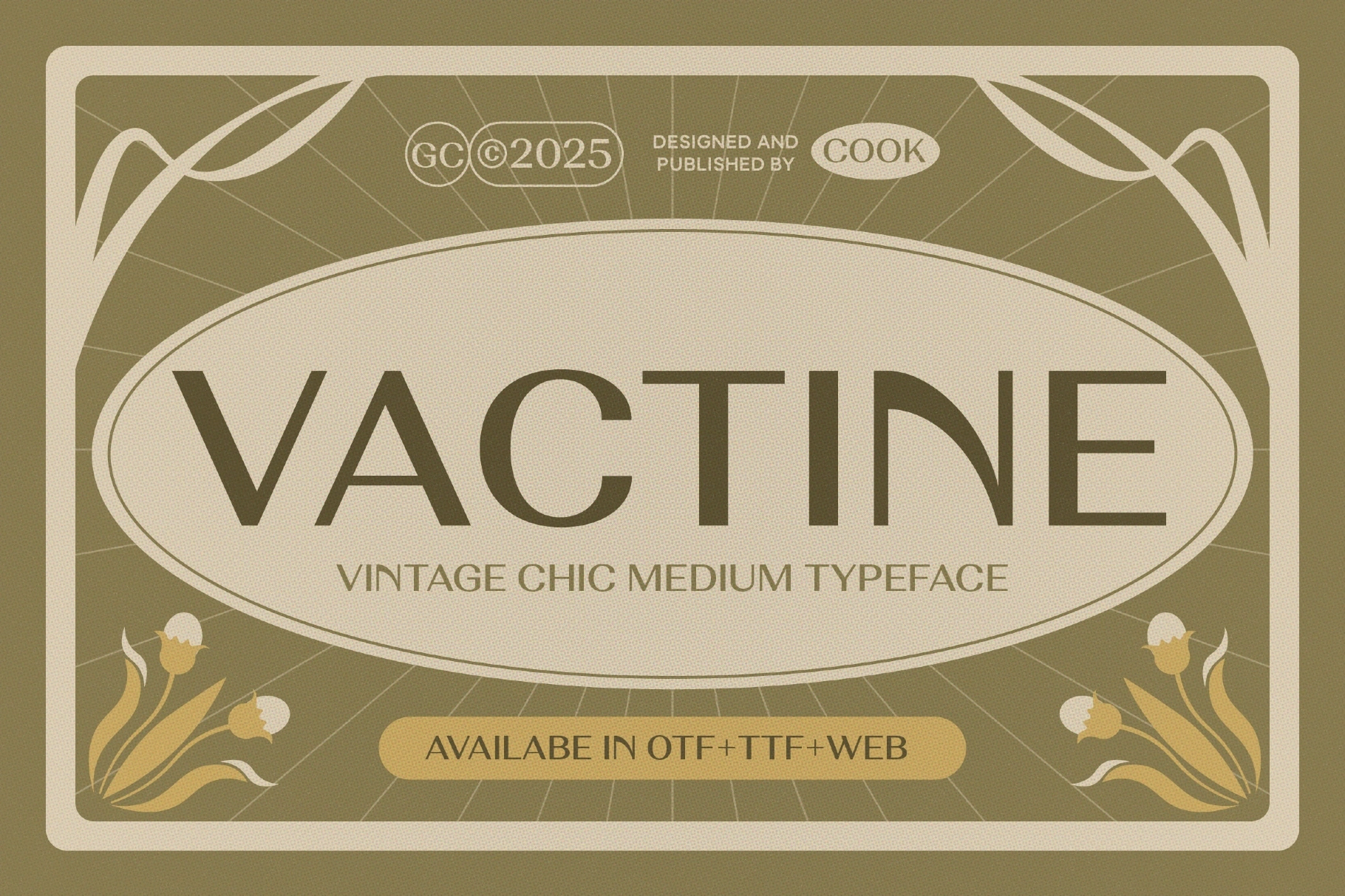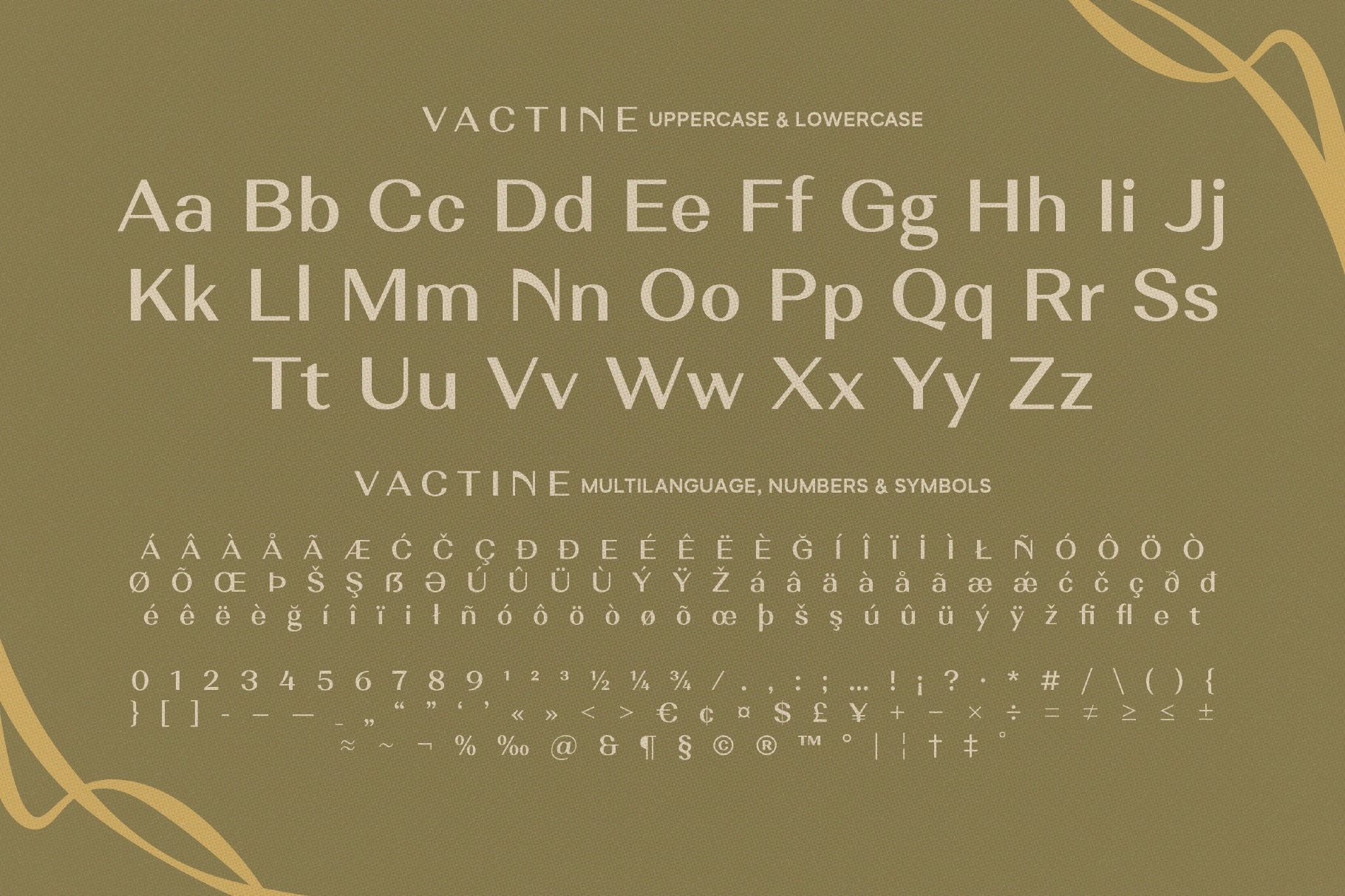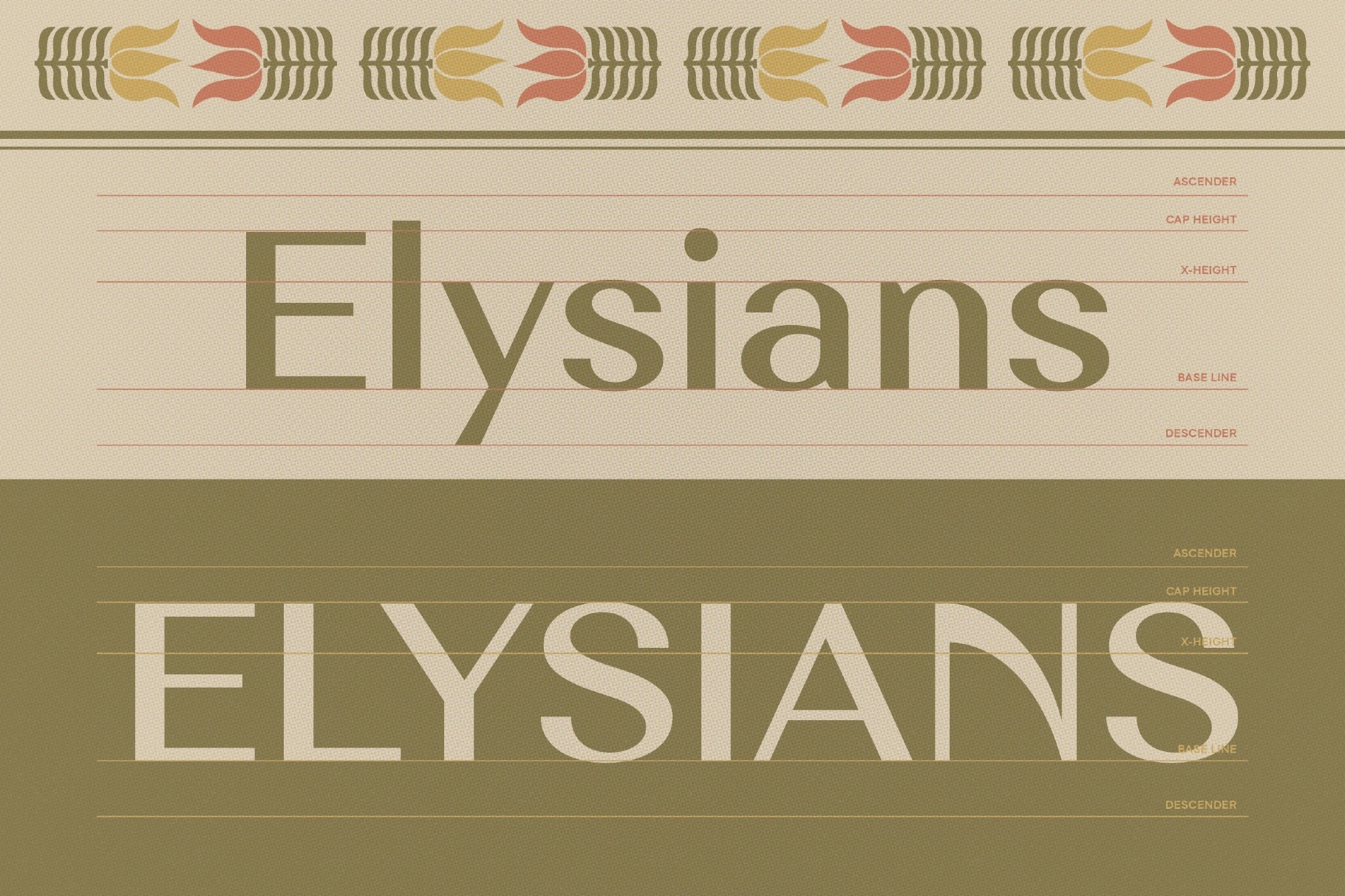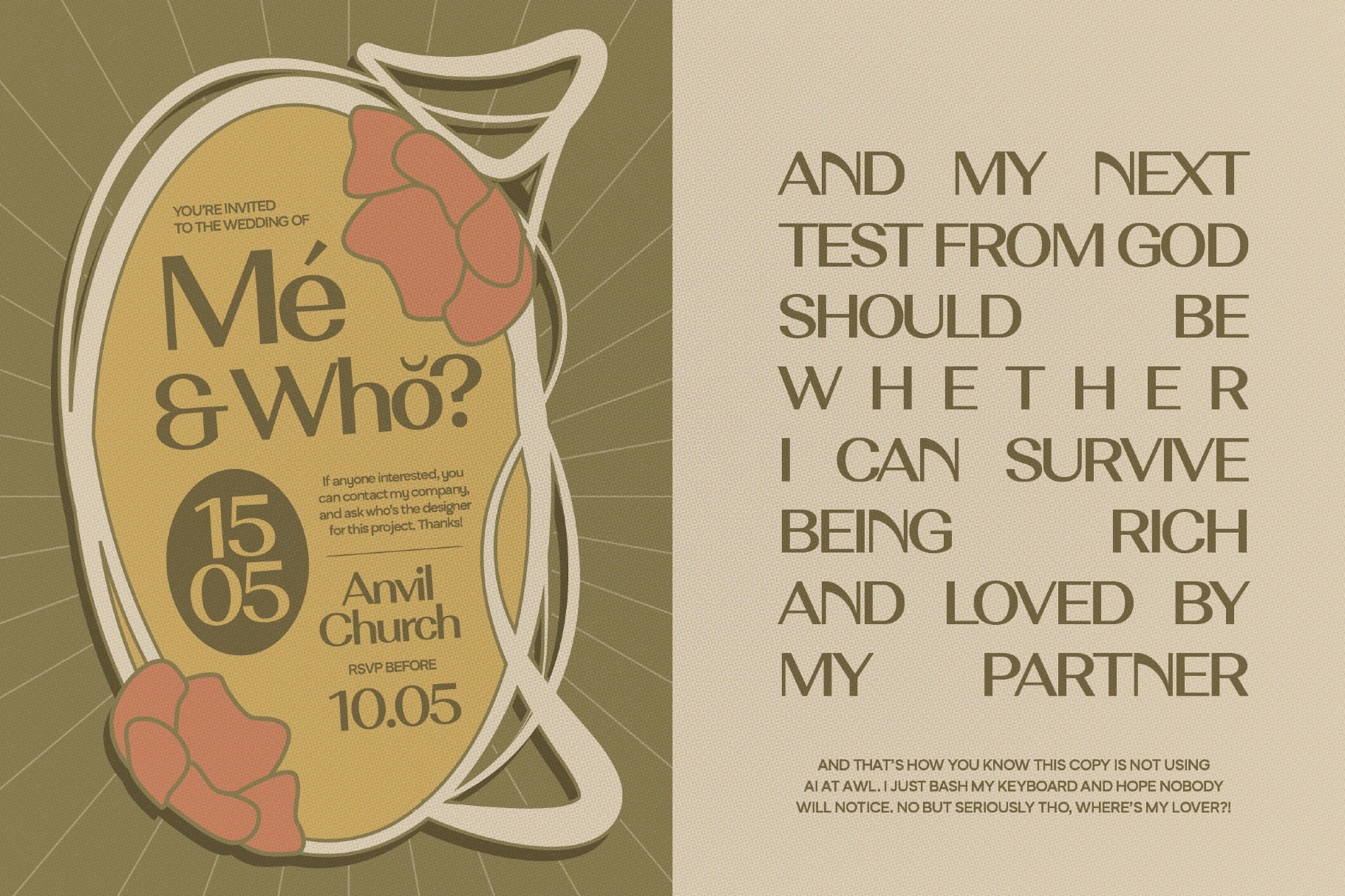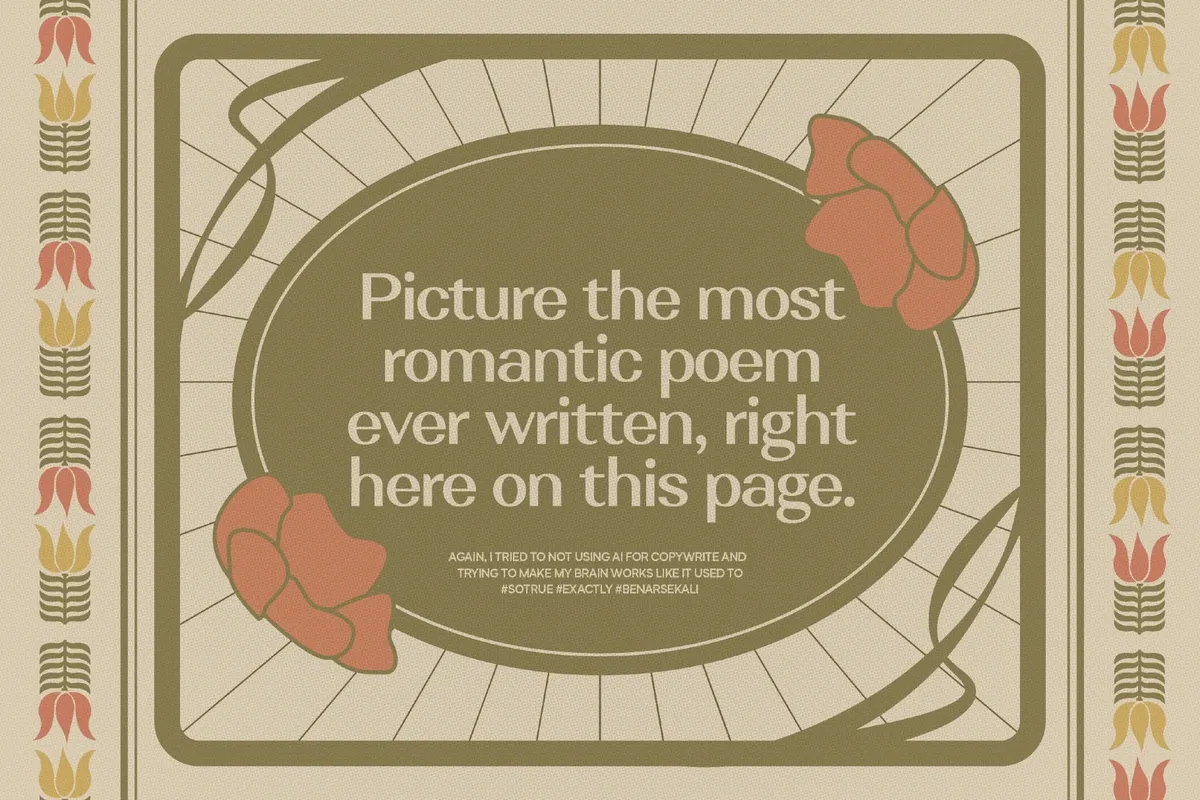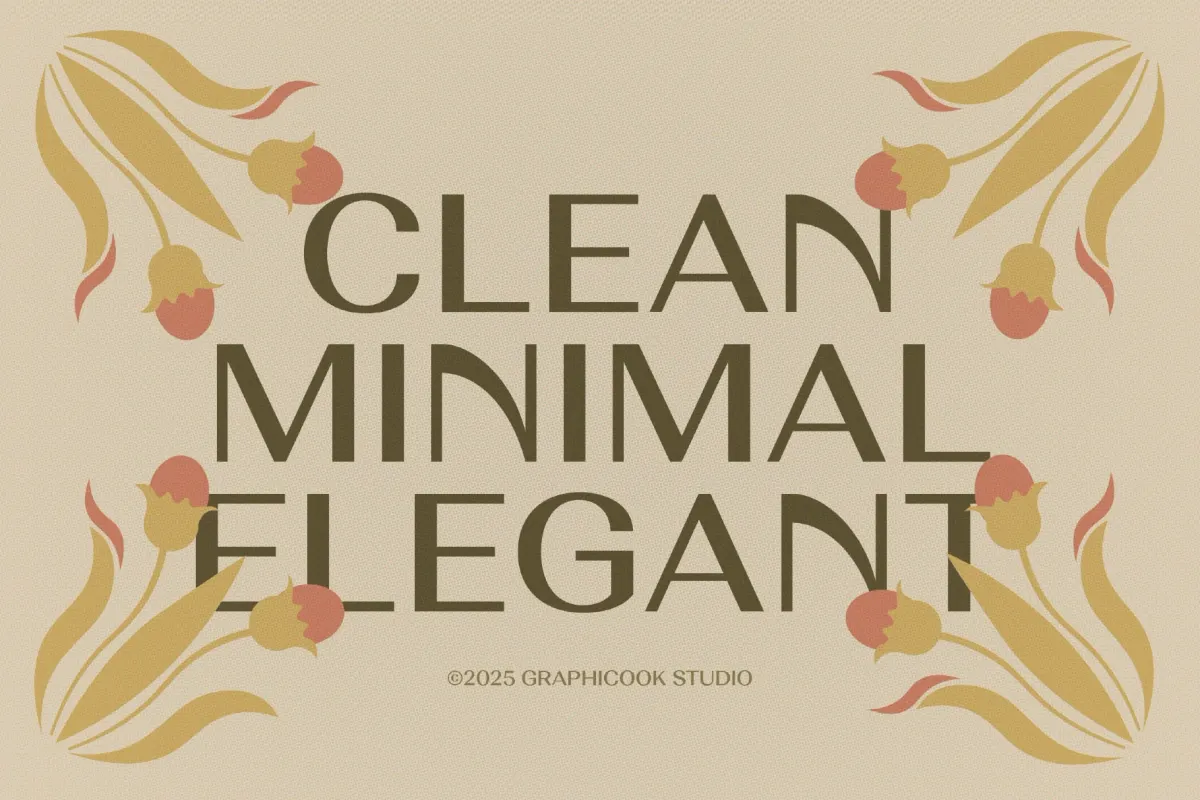
Vactine - Vintage Chic Font
Vactine
Vactine - Vintage Chic Font is a refined vintage typeface inspired by classic European signage, romantic editorial layouts, and retro branding aesthetics. Designed with elegant proportions and soft curves, this font brings warmth, personality, and timeless charm to any project.
Its balanced letterforms and distinctive details make it perfect for logos, packaging, labels, boutique branding, café identities, book covers, posters, and editorial headlines. Vactine blends nostalgic character with modern usability, making it versatile for both print and digital design.
Whether you're building a heritage-inspired brand or adding a romantic vintage touch to your typography, Vactine delivers sophistication with a unique personality.
- Uppercase & Lowercase letters
- Ideal for branding, logos, packaging & editorial design